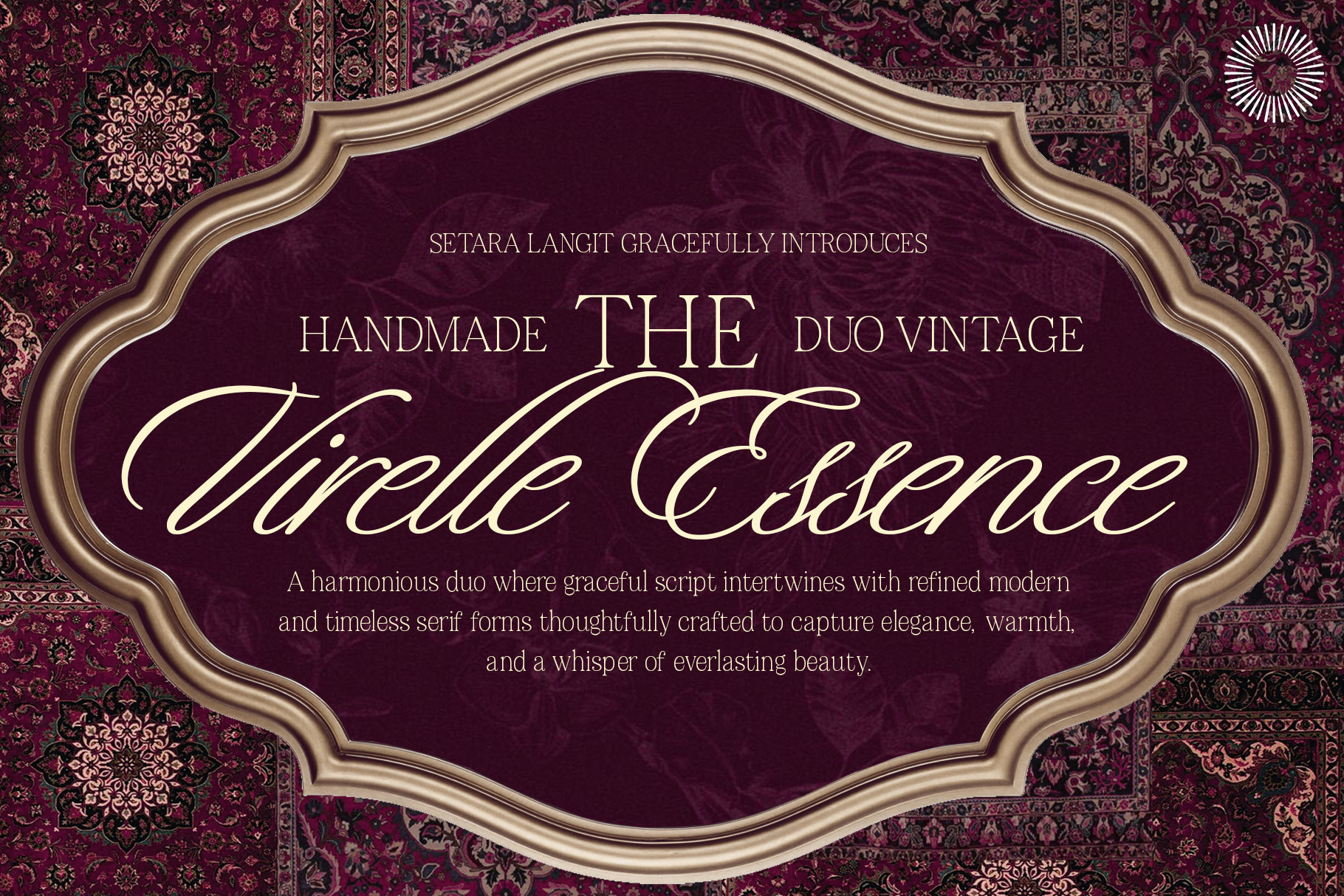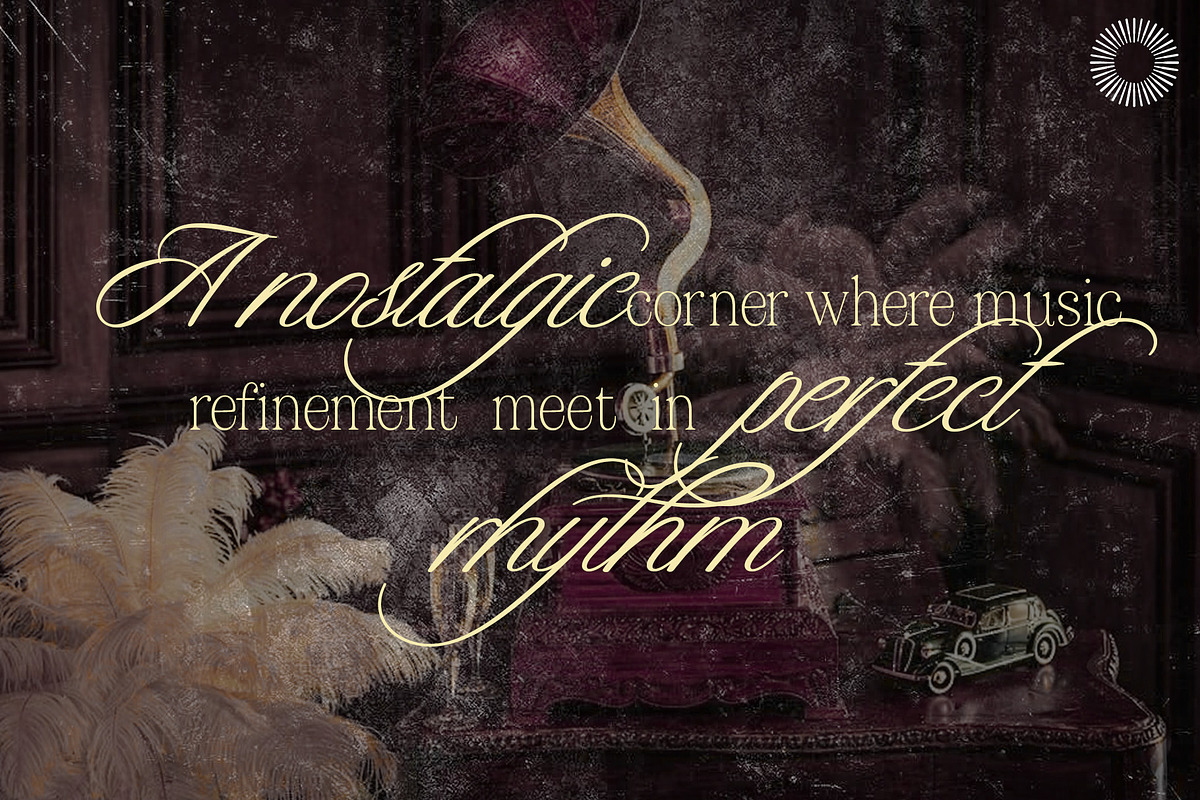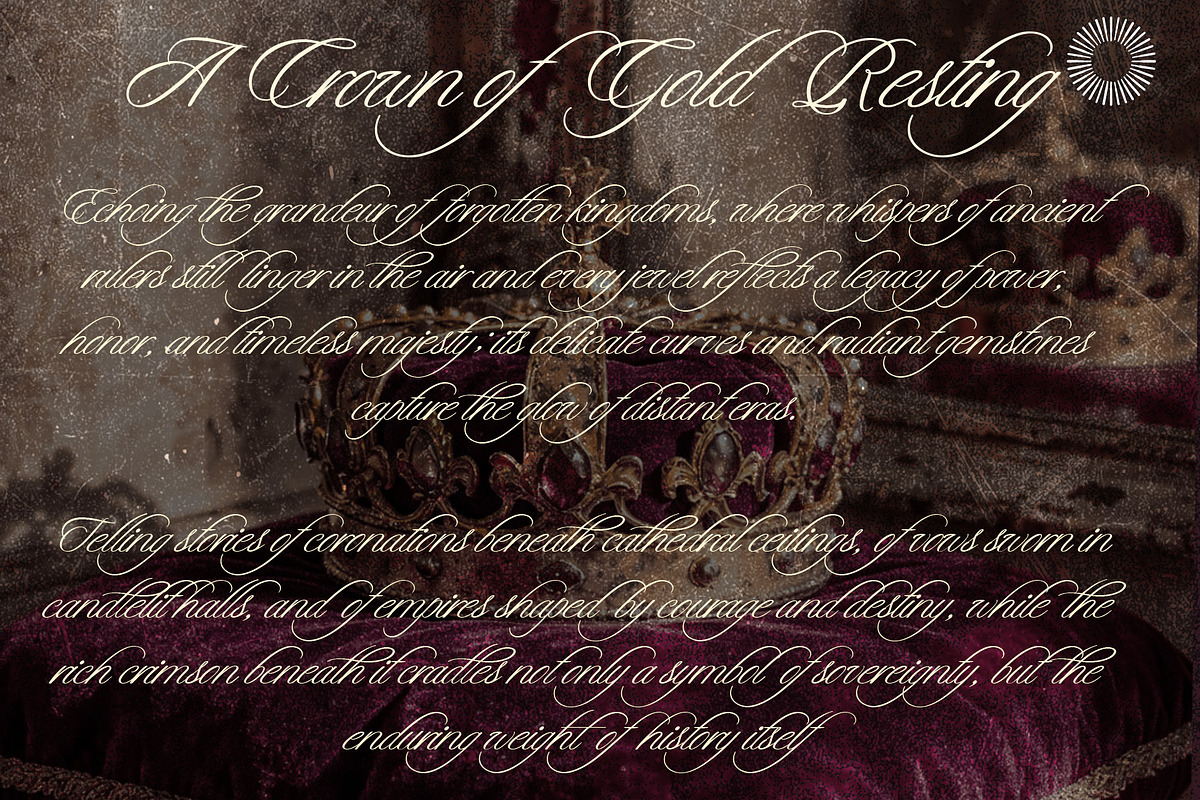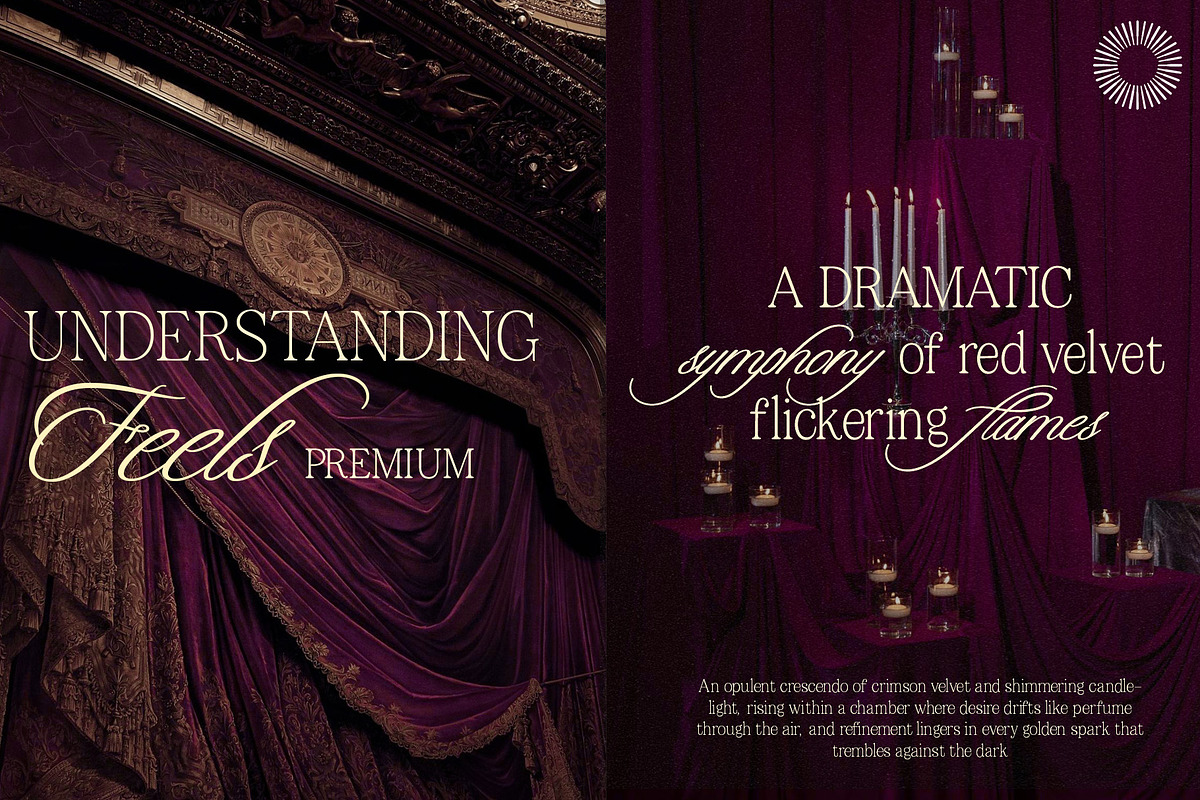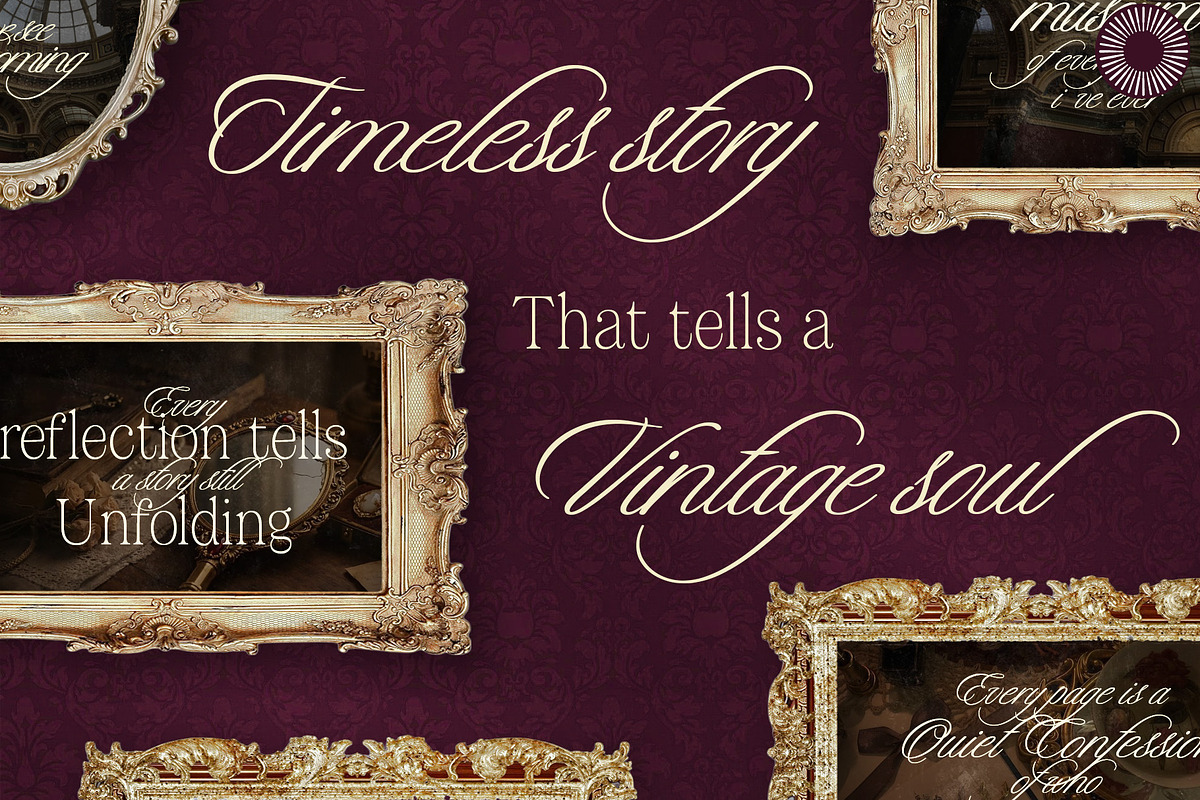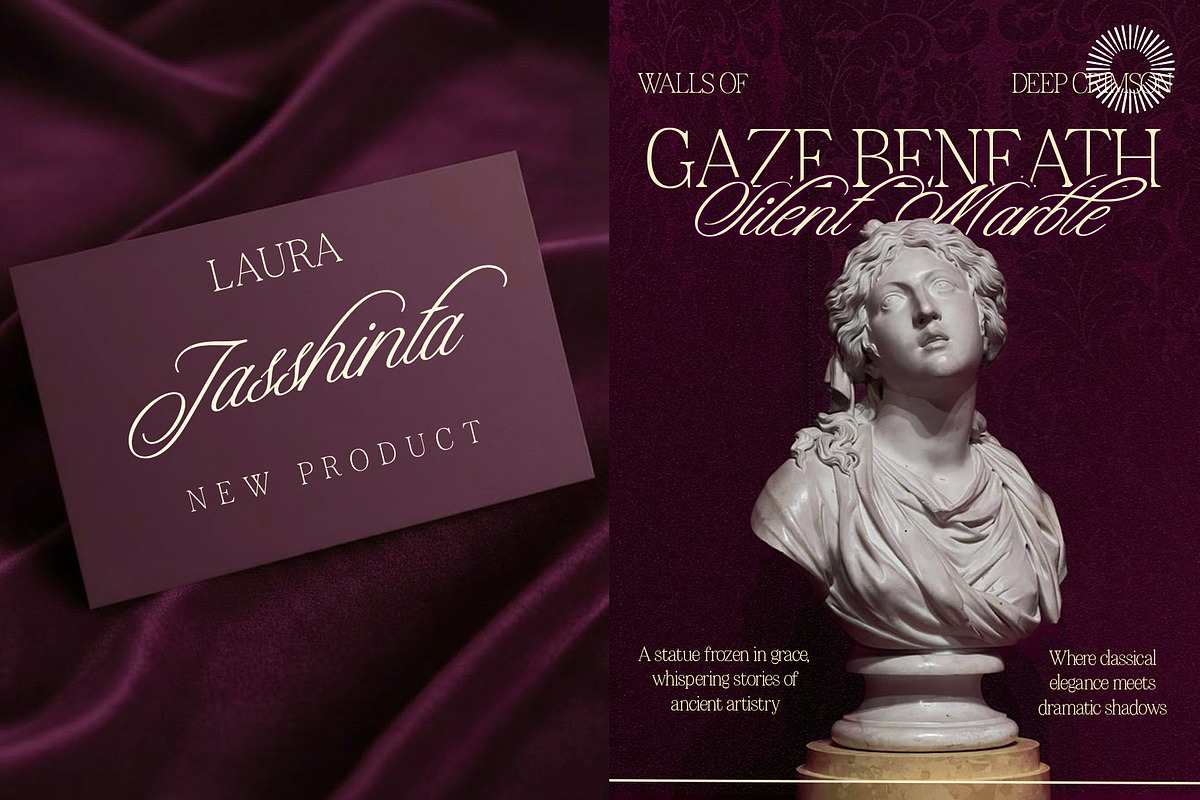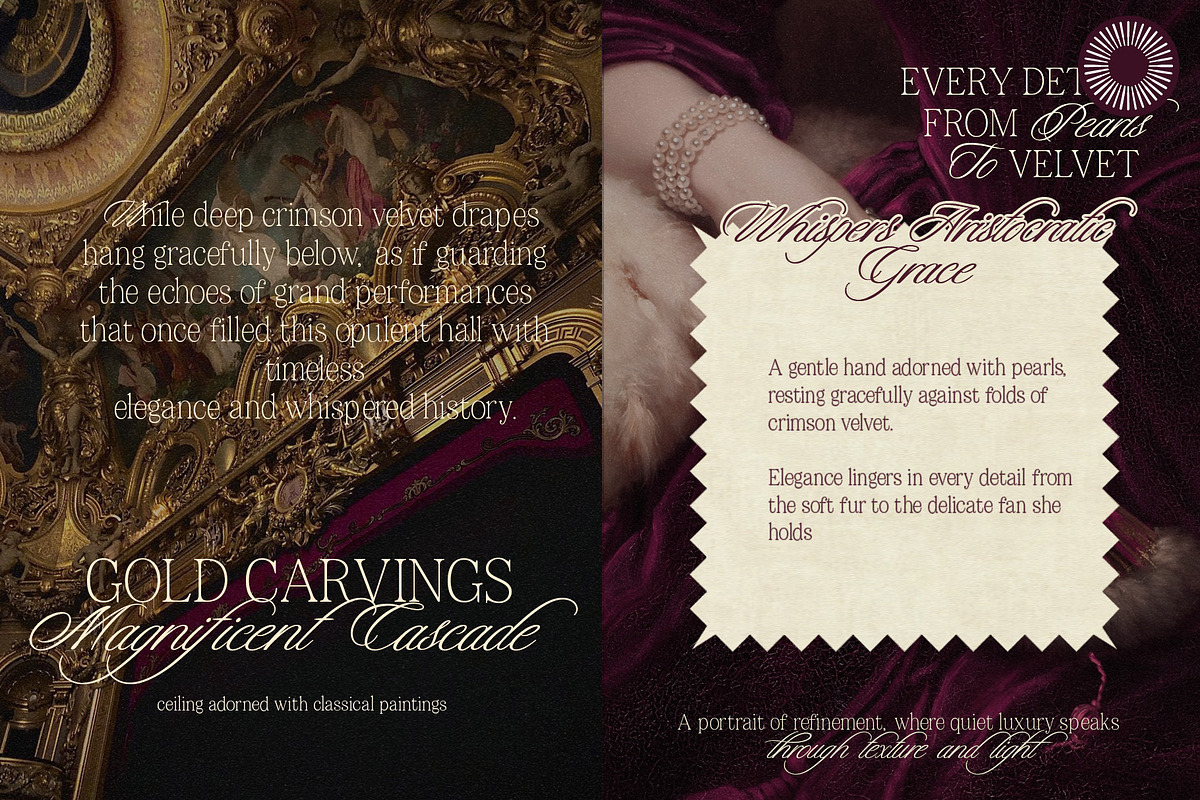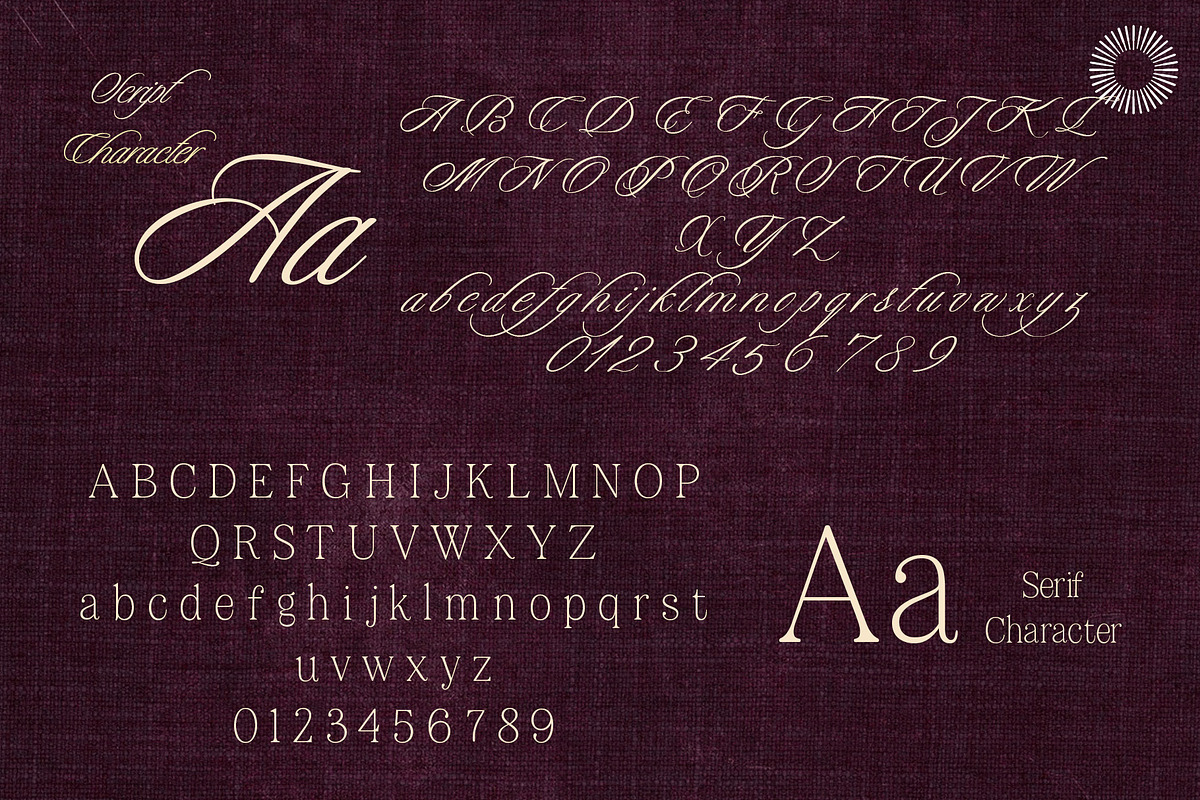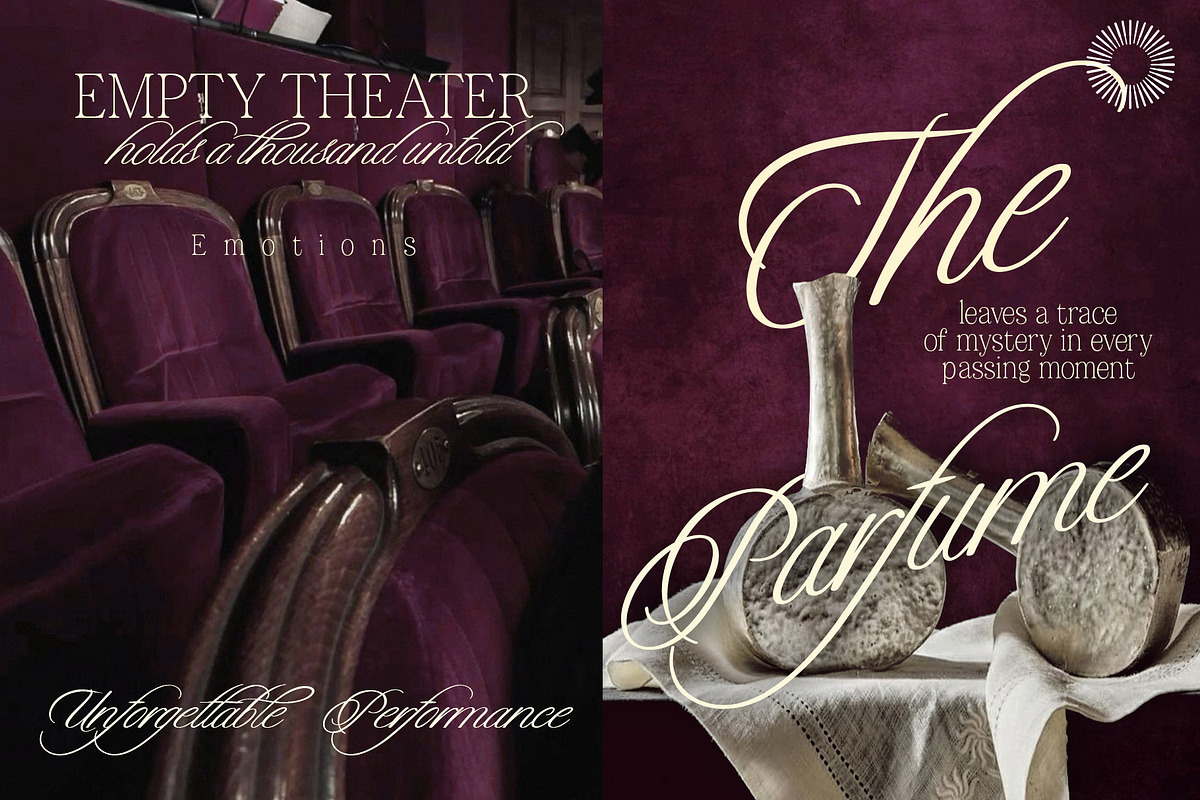
Virelle Essence - Elegant Font Duo
Virelle Essence is a graceful font duo that blends a flowing handwritten script with a refined serif companion. Designed to capture warmth and timeless elegance, this pair creates a harmonious balance between expressive curves and structured letterforms. The script brings softness and personality, while the serif adds clarity and sophistication making them perfect together or beautiful on their own. Carefully crafted with attention to detail, Virelle Essence is ideal for designs that need a romantic, classic, and luxurious touch.
- Script + Serif font duo
- Smooth flowing swashes
- Clean serif structure
Best For
- Wedding invitations
- Branding & logos
- Packaging design
- Editorial layouts
- Social media
- Beauty brands
- Boutique products
- Luxury branding
- Vintage-inspired designs